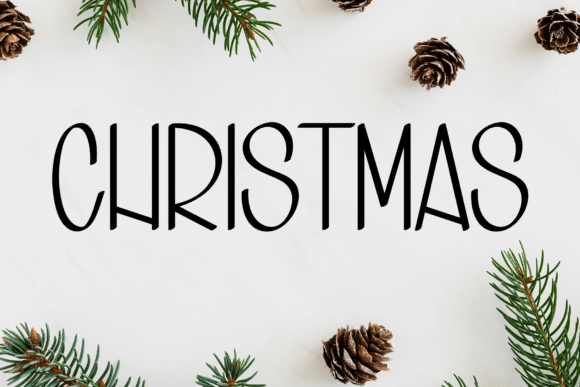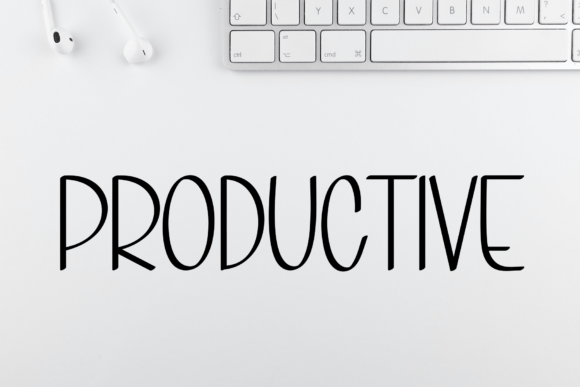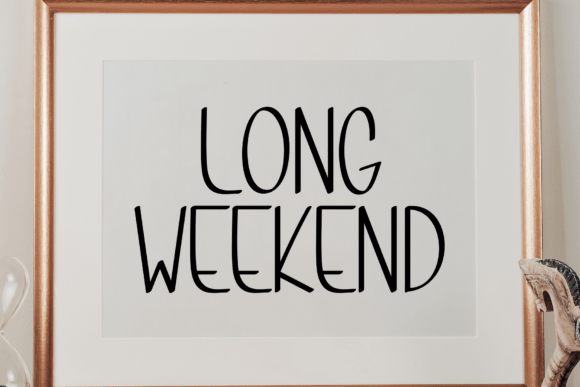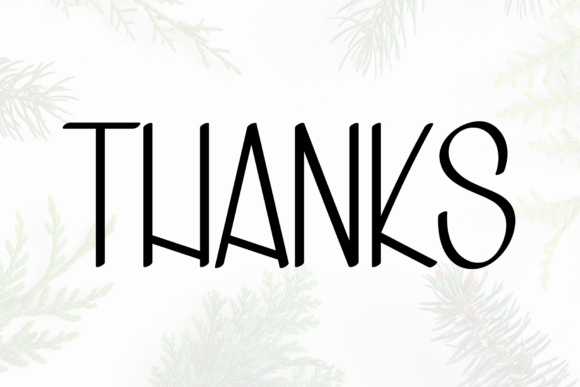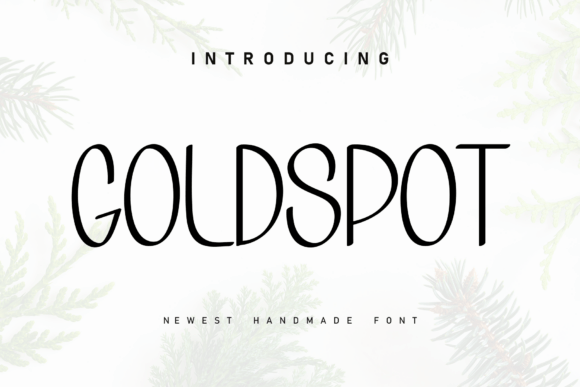
Introducing Goldspot Font: The Sweet and Beautiful Handwritten Font for Your Design Projects
Are you looking for a font that can add a touch of warmth and coziness to your design projects? Look no further than Goldspot Font! This sweet and beautiful handwritten font is perfect for crafters, designers, and anyone who wants to add a personal touch to their creations. In this article, we’ll dive into the features and benefits of Goldspot Font, and explore how you can use it to elevate your design projects.
What is Goldspot Font?
Goldspot Font is a handwritten font that features characters that dance along the baseline, giving it a playful and whimsical feel. The font is designed to be easy to read and use, making it perfect for a variety of design projects, from invitations and greeting cards to blog posts and social media graphics.
Key Features of Goldspot Font
• Sweet and Beautiful Handwriting: Goldspot Font features a sweet and beautiful handwritten style that is perfect for adding a personal touch to your design projects.
• Characters that Dance Along the Baseline: The font’s unique design features characters that dance along the baseline, giving it a playful and whimsical feel.
• Easy to Read and Use: Goldspot Font is designed to be easy to read and use, making it perfect for a variety of design projects.
• Cozy Accent: The font adds a cozy accent to any design project, making it perfect for crafters and designers who want to create warm and inviting designs.
Benefits of Using Goldspot Font
There are many benefits to using Goldspot Font in your design projects. Here are just a few:
• Adds a Personal Touch: Goldspot Font adds a personal touch to your design projects, making them stand out from the crowd.
• Perfect for Crafters and Designers: The font is perfect for crafters and designers who want to create unique and eye-catching designs.
• Versatile: The font can be used for a variety of design projects, from invitations and greeting cards to blog posts and social media graphics.
How to Use Goldspot Font in Your Design Projects
Using Goldspot Font in your design projects is easy! Here are a few tips to get you started:
• Pair it with Other Fonts: Goldspot Font pairs well with other fonts, so don’t be afraid to experiment with different combinations.
• Use it for Headings and Titles: The font is perfect for headings and titles, where you want to add a touch of personality to your design.
• Add it to Your Social Media Graphics: Goldspot Font is perfect for social media graphics, where you want to add a personal touch to your posts.
• Use it for Invitations and Greeting Cards: The font is perfect for invitations and greeting cards, where you want to add a touch of warmth and coziness.
Goldspot Font is a sweet and beautiful handwritten font that is perfect for crafters, designers, and anyone who wants to add a personal touch to their design projects. With its unique design and easy-to-use features, it’s the perfect addition to any design project. Whether you’re creating invitations, greeting cards, blog posts, or social media graphics, Goldspot Font is sure to add a cozy accent that will make your designs stand out from the crowd.